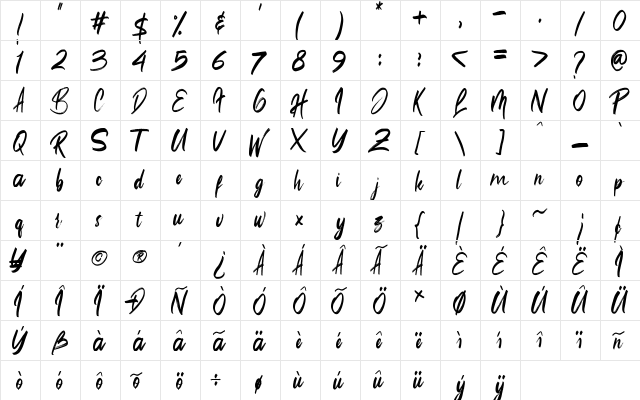
ReallistiC Regular
| Foundry | Analogous |
| Designer | Analogous |
Design Context for ReallistiC Typeface
ReallistiC is a composed and adaptable typeface that performs quietly and consistently across a wide range of design contexts.